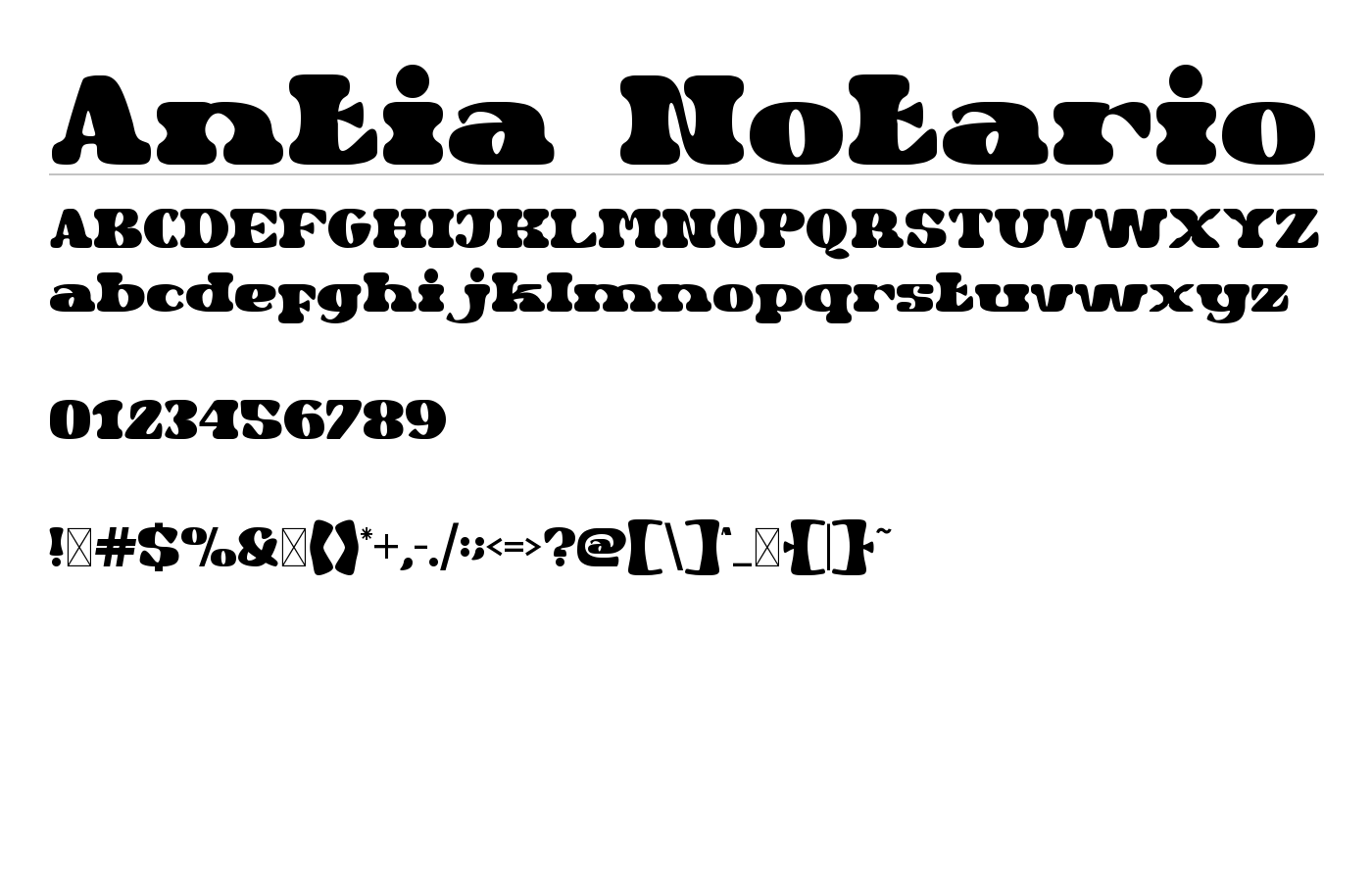
Antia Notario is a bold, slab serif font with a playful and robust character, featuring thick, rounded serifs and a sturdy, compact structure. Its high contrast between thick and slightly thinner strokes combined with distinctive letterforms, like the curved Q tail and double-story a and g, give it a unique, vintage-inspired yet approachable feel. This font works well for eye-catching headlines, branding, and packaging where a strong, friendly personality is desired.
Antia Notario Font
About Antia Notario Font